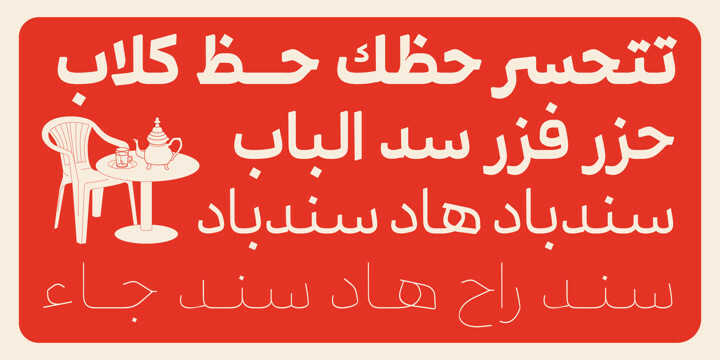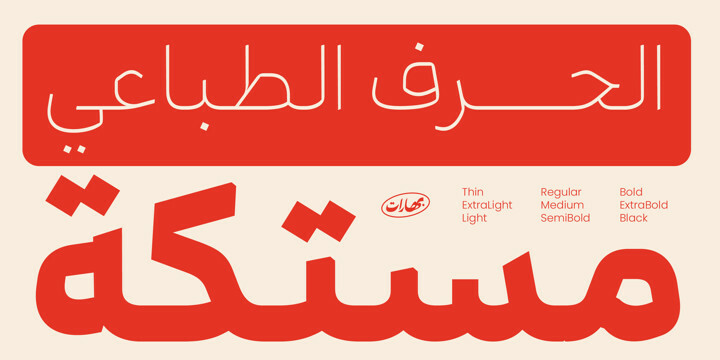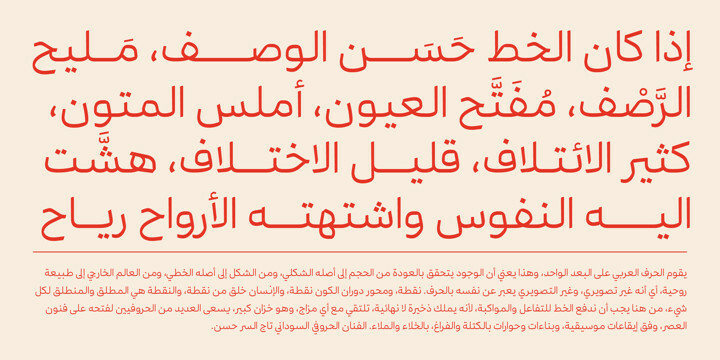
Mestika Arabic Font Family
Mestika Arabic Font FamilyMestika is a resinous spice, in Arabic means gum, the name is Mestika cause the mestika has a mixture of sharp edges and cursive connections, that mixture gives the typeface an edge to stand out, a low contrast sharp design with 9 weights making it works well with text and headlines. The design is a collaboration with the Iranian designer Kamyab Jafari, The typeface is a modern design, and has a wide range of ligatures and features for better justifications.
The typeface comes with 9 weights, and works in variable axes, the typeface now supports only Arabic-based languages, but in the near future, it would support Latin-based languages, the Typeface is based on Naskh calligraphy, something in between the Iranian and the Arabic styles.